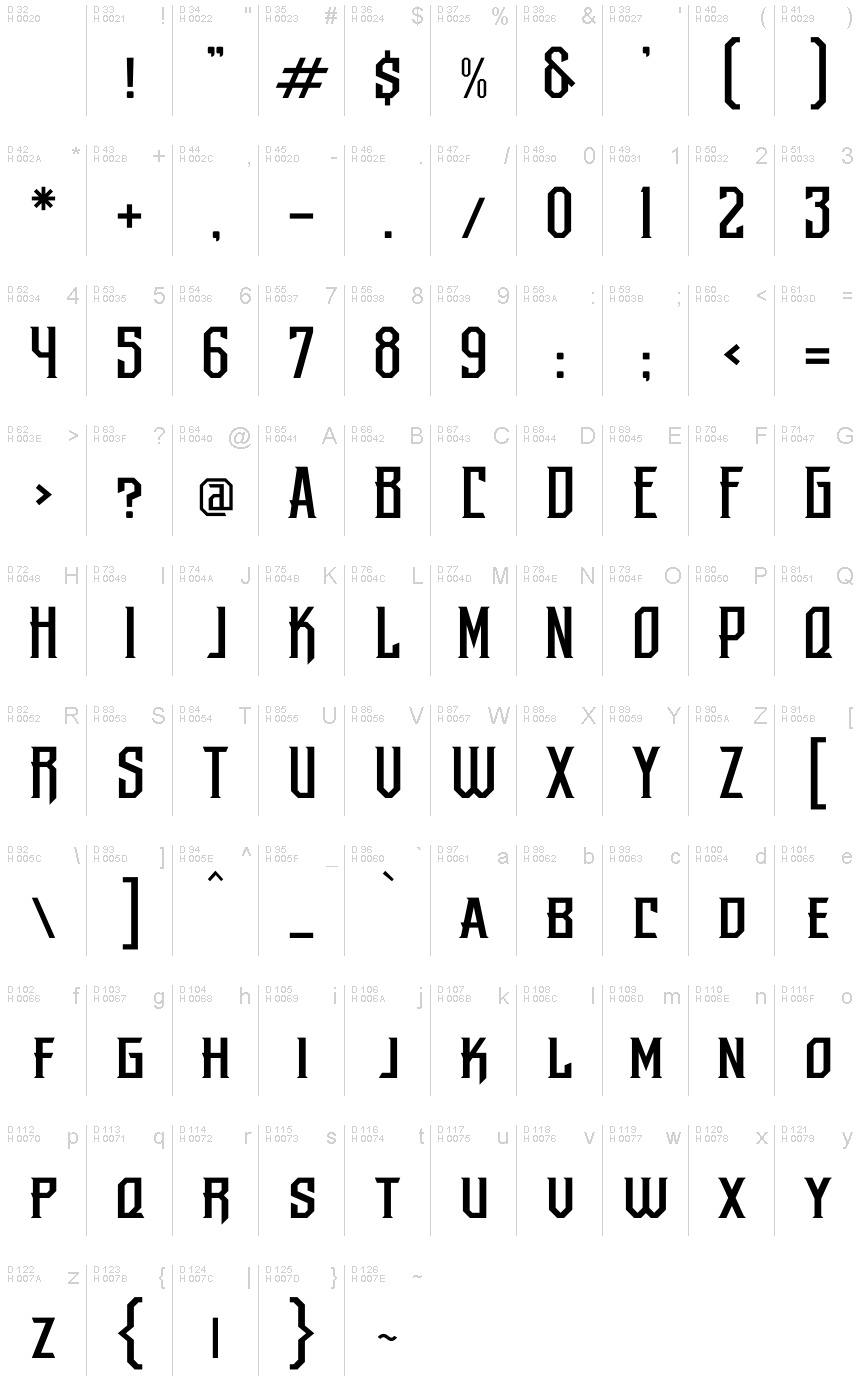
BEATLES
Beatles font by Storytype Studio is a striking display typeface that exudes a retro flair with its condensed form. This free font stands out with its bold and eye-catching design, perfect for projects needing a vintage touch. Beatles font's unique aesthetic appeal makes it ideal for headlines, posters, and branding that demand attention.
With its distinct style, this retro-inspired typeface can transform ordinary designs into memorable statements. Whether you’re crafting an eye-catching logo or creating an immersive period piece, the Beatles font offers versatility across various design contexts.